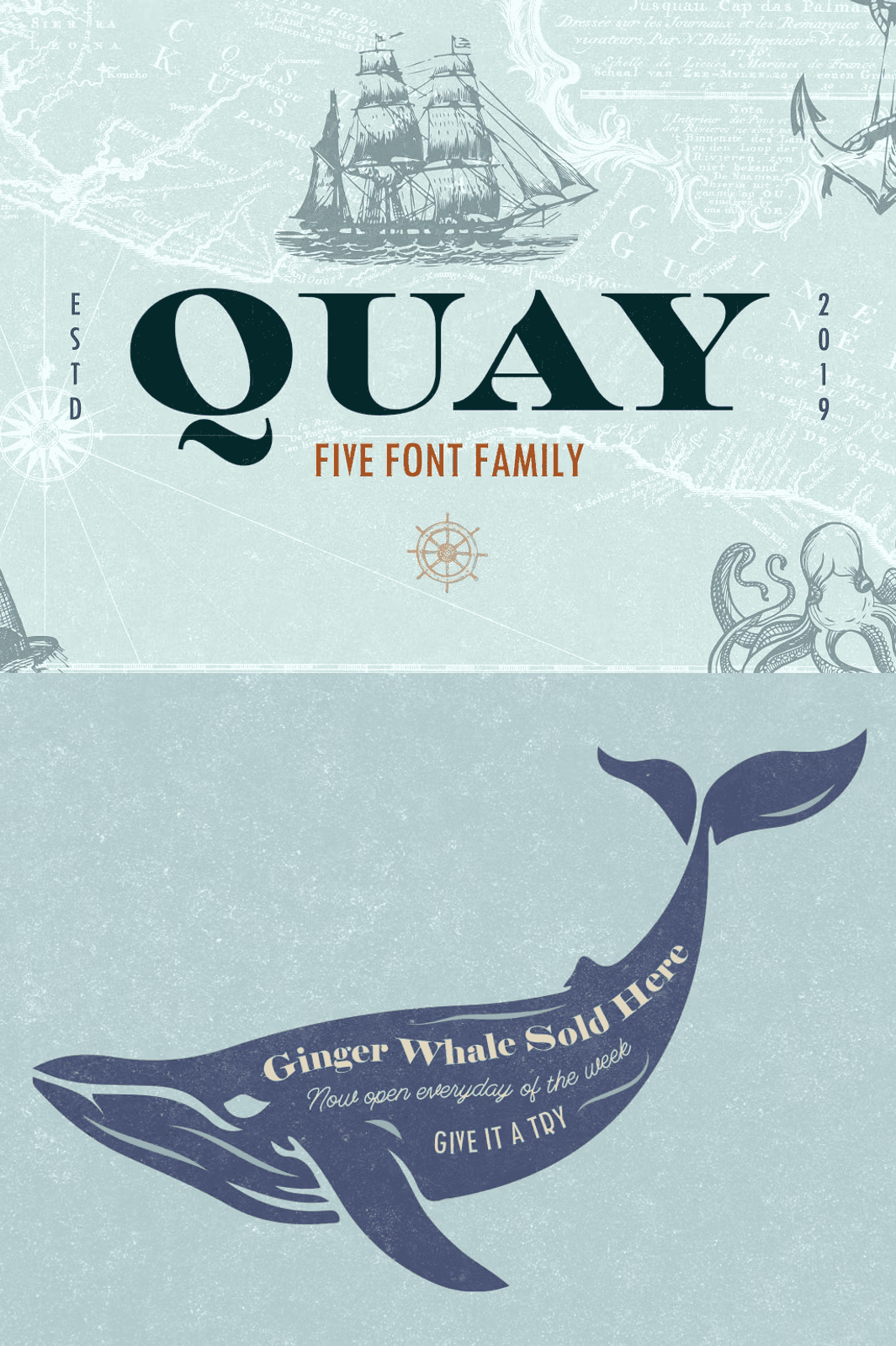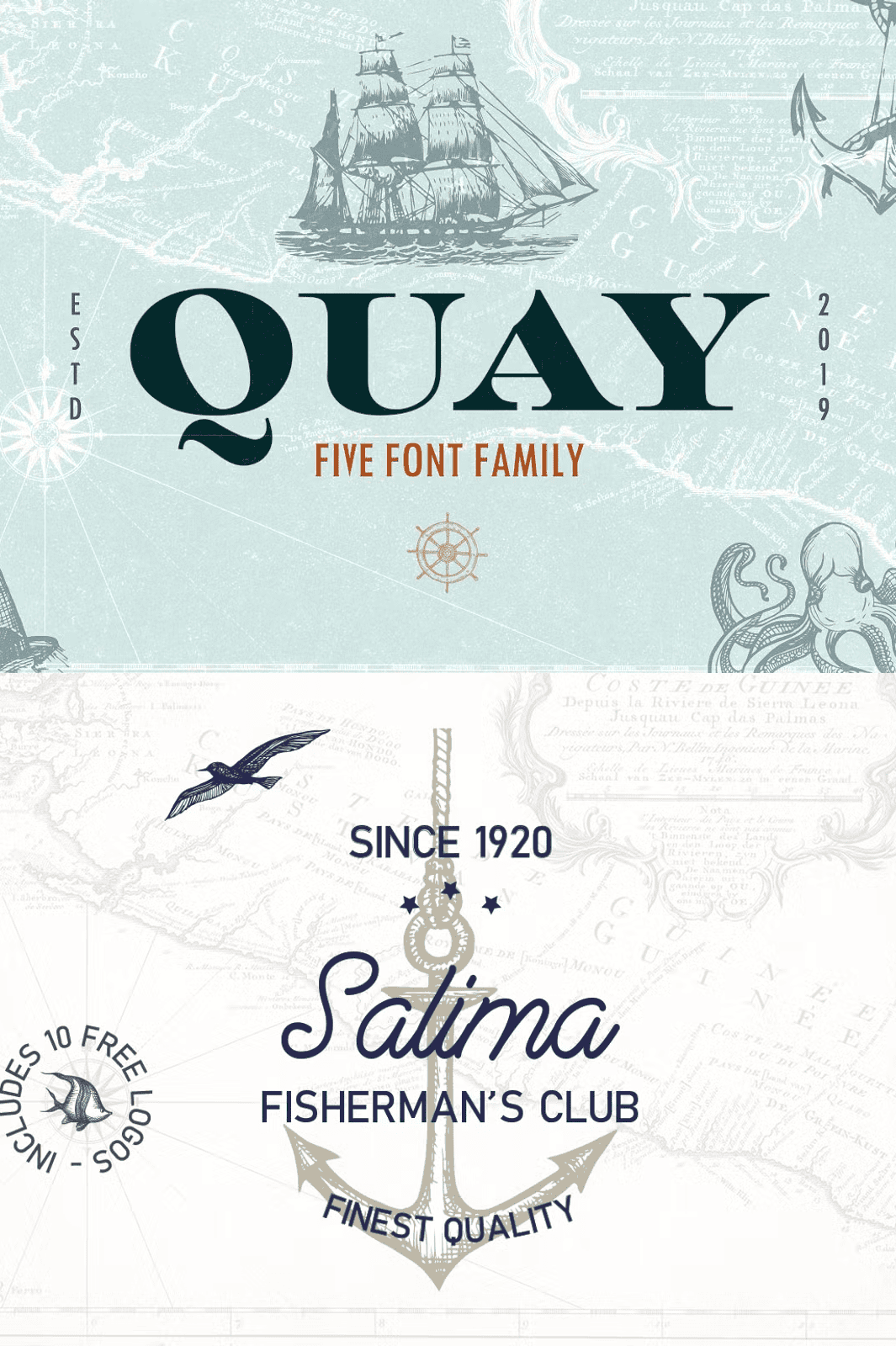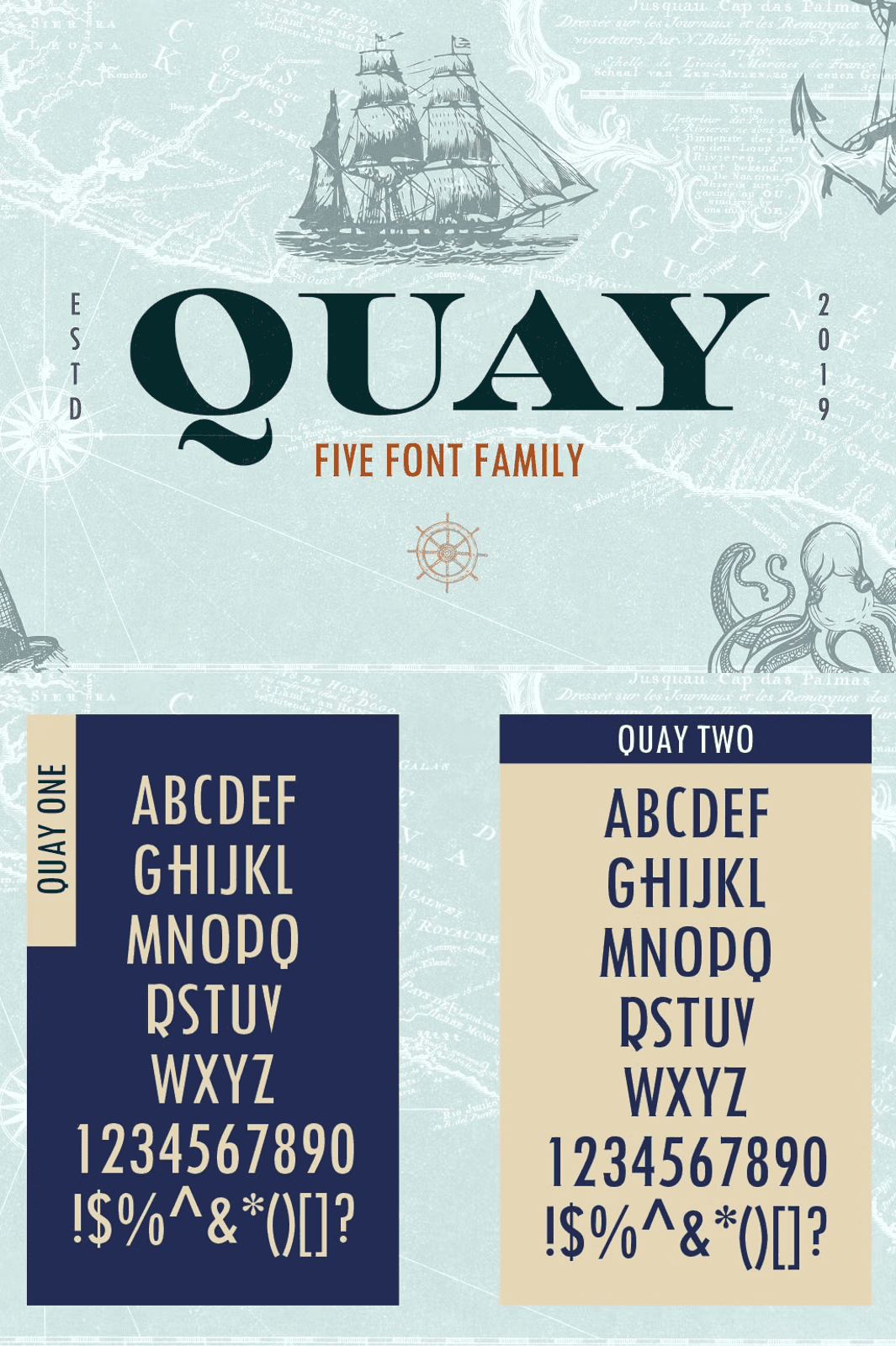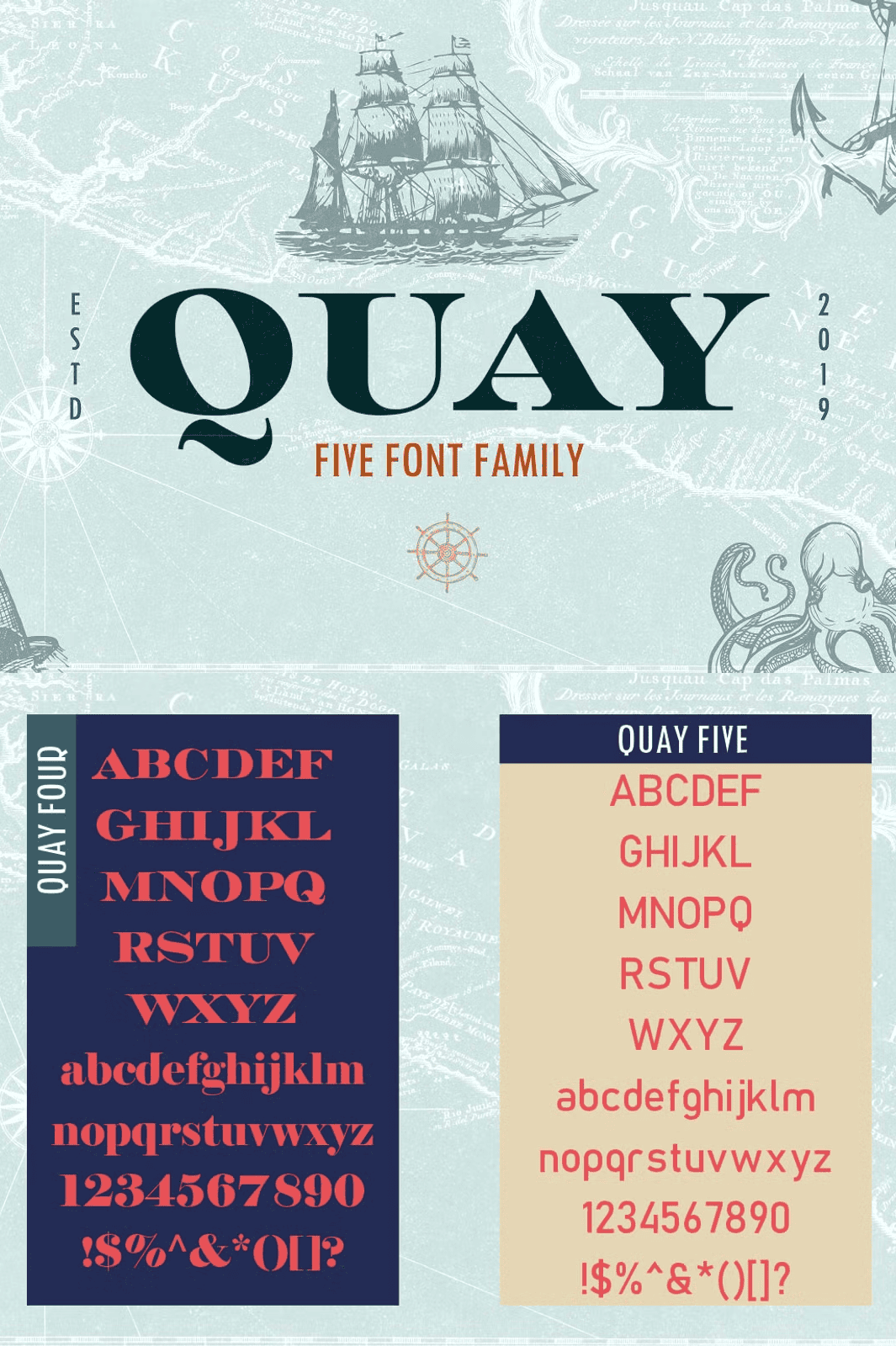
Quay Font Bundle & Bonus Logos
Tap into the untamed spirit of the ocean with the Quay Font Bundle, a dynamic collection of five handcrafted display fonts inspired by sailors, salty breezes, sun-kissed sand, and the timeless rhythm of the tide. Each font in this bundle is meticulously designed to inspire, energize, and transform your creative projects with authentic maritime character and bold visual presence. Whether you’re building a coastal lifestyle brand, designing a music festival poster, or crafting a vintage t-shirt collection, Quay delivers the raw, artistic energy you need to stand out from the crowd.
Five Unique Fonts, Infinite Possibilities: Build a Cohesive Visual Identity
The Quay Font Bundle includes five distinct fonts, each with a unique personality that complements the others to create a harmonious and powerful visual language: Quay One, Quay Two, Quay Three, Quay Four, and Quay Five. You can mix and match them to craft layered, textured designs that tell a compelling story. Use Quay One for clean, confident headings; Quay Two for playful, expressive phrases; Quay Three for elegant, detailed layouts (with openType features); Quay Four for rugged, industrial vibes; and Quay Five for smooth, flowing script elements. This versatility makes Quay the ultimate toolkit for designers who want to craft diverse, professional-quality work across multiple platforms.
Go Beyond the Font: Bonus Logo Kit Included
What sets the Quay Font Bundle apart is the included bonus package of 10 professionally crafted logo designs, delivered in separate AI files. These ready-to-use templates give you instant inspiration and a solid foundation for developing your own brand identity. Whether you’re launching a surfwear brand, a beachside café, or a nautical-themed product line, these logos provide a head start, saving you time and sparking new ideas. You’ll learn how to apply the Quay fonts effectively, see how they work together, and get a real-world example of how to use OpenType features like alternates and ligatures—especially in Quay Three, which requires compatible software like Adobe Illustrator or Photoshop to unlock its full potential.
Universal Compatibility & Professional-Grade Quality
Stop searching for fonts that fall flat. The Quay Font Bundle gives you everything you need to bring your vision to life with confidence, creativity, and style. From branding and packaging to social media graphics and editorial design, this is the ultimate upgrade for any designer, artist, or small business owner passionate about storytelling through typography.